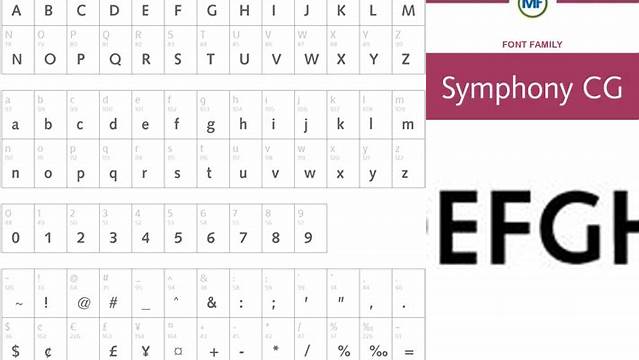
Hey guys! Are you on the hunt for a fantastic font that's both stylish and readable? Look no further, because we're diving deep into the world of CG Symphony Bold Font and how you can get a free download! This font is a real game-changer for anyone looking to add a touch of elegance and boldness to their projects. Whether you're a graphic designer, a student working on a presentation, or just someone who loves to personalize their documents, CG Symphony Bold is a stellar choice. We'll explore everything from its key features to where you can safely and legally snag it without spending a dime. Get ready to elevate your designs – let's get started!
What Makes CG Symphony Bold Font So Special?
Alright, let's talk about why CG Symphony Bold font is such a star. First off, it's incredibly versatile. It looks fantastic in a variety of settings, from headlines to body text. The bold weight ensures your words pop, grabbing the reader's attention instantly. That makes it perfect for branding, creating posters, or even making your social media posts stand out. The design itself is clean and modern, offering a sense of sophistication without feeling overly fussy. It strikes a beautiful balance between readability and style, ensuring your message gets across without sacrificing aesthetics. This font isn't just about looks; it's also designed for practicality. The character set is extensive, meaning you'll find all the letters, numbers, and symbols you need for any project. And, believe it or not, that's super important! It’s made for digital and print use, so you don’t have to stress about compatibility or how it will look when printed. It really is the whole package, making it a reliable choice for both professionals and hobbyists. So, the magic word here is versatility. CG Symphony Bold font does a lot, and it does it all well. That’s why it's a favorite of many, and you'll soon understand why!
Digging Deeper: Features and Characteristics
Let's break down CG Symphony Bold font’s core features, shall we? The boldness is, of course, its defining characteristic. This font is intentionally designed to make a statement. The thick strokes ensure your words stand out, especially useful in headings and titles. The letterforms are crafted with attention to detail, which is a real treat! Each letter has a unique shape, but when combined, they form a harmonious composition that's easy on the eyes. The overall design is clean and modern, with a subtle touch of personality. This makes it a great choice for many different types of projects. The font also has good kerning and spacing, improving readability. The spacing between letters and words is carefully optimized to make sure the text is easy to read at any size. This is a very subtle but important detail that can make a huge difference in the overall impact of your design. The character set is pretty generous. This font has a full range of characters, including letters, numbers, and special symbols. This is super important because it lets you use the font in many different languages. Also, this means you will probably never run into those annoying missing-character issues! The CG Symphony Bold font isn't just about making things look pretty; it's about getting your message across in a clear, stylish, and unforgettable way. It’s a versatile tool that can really level up your design game.